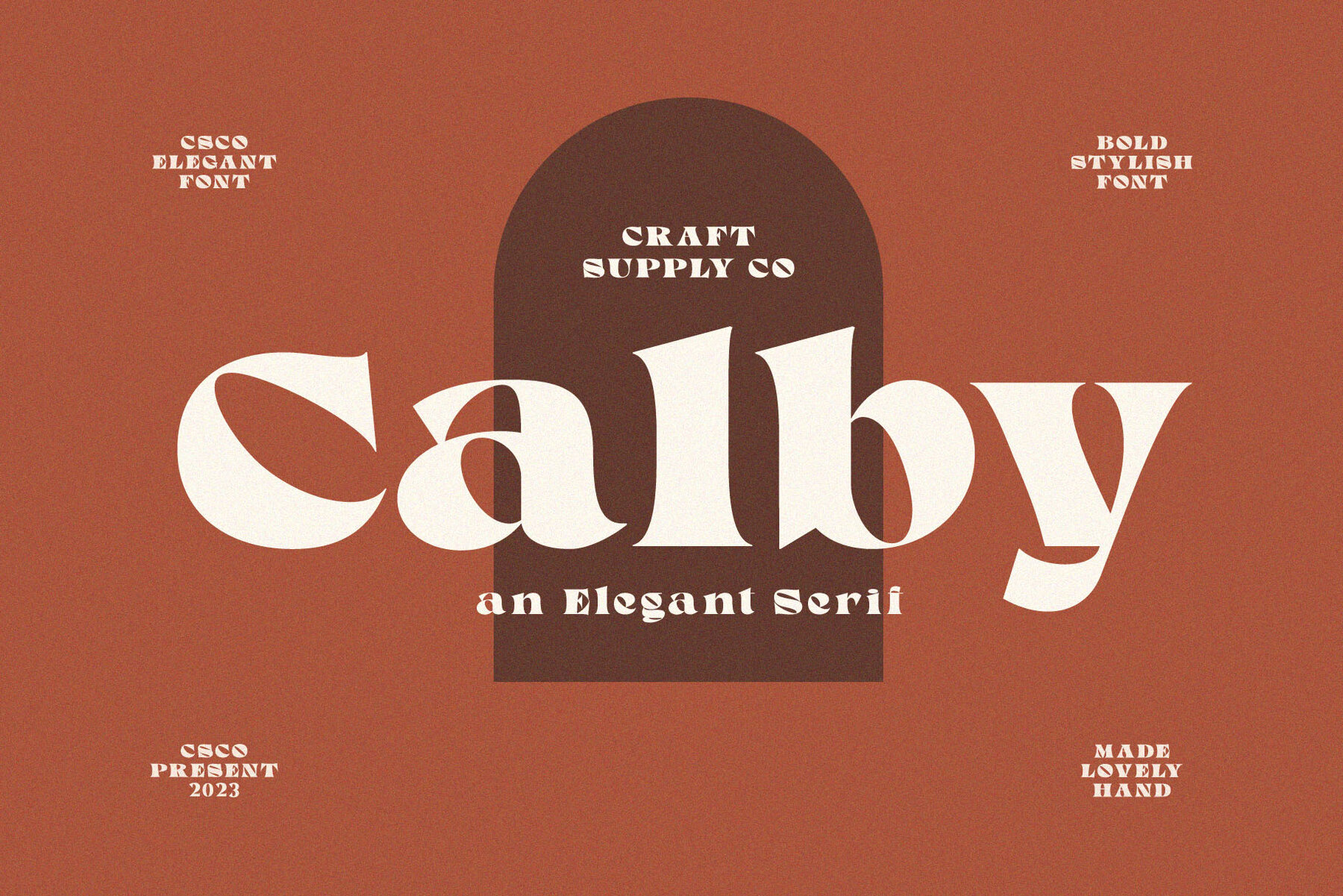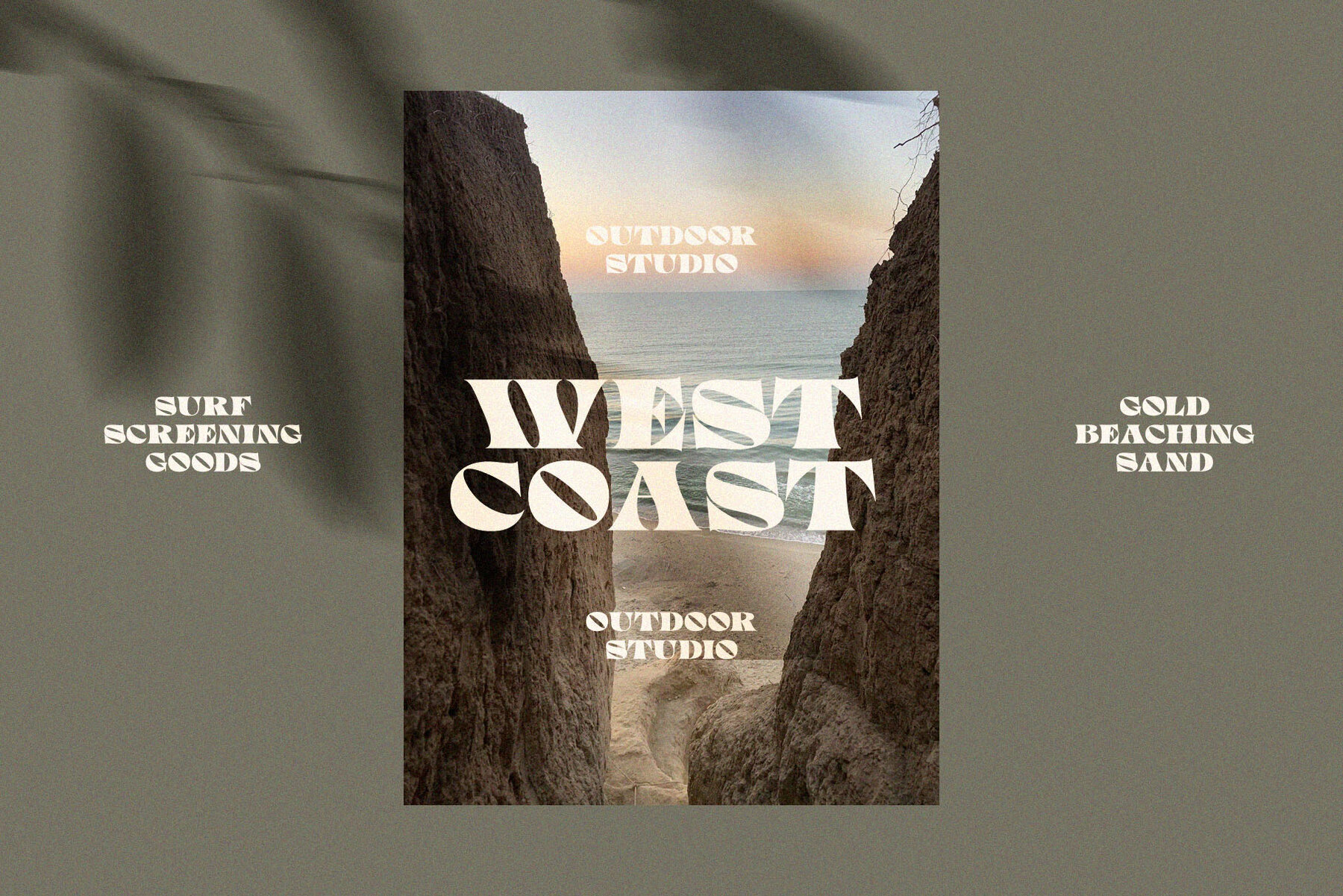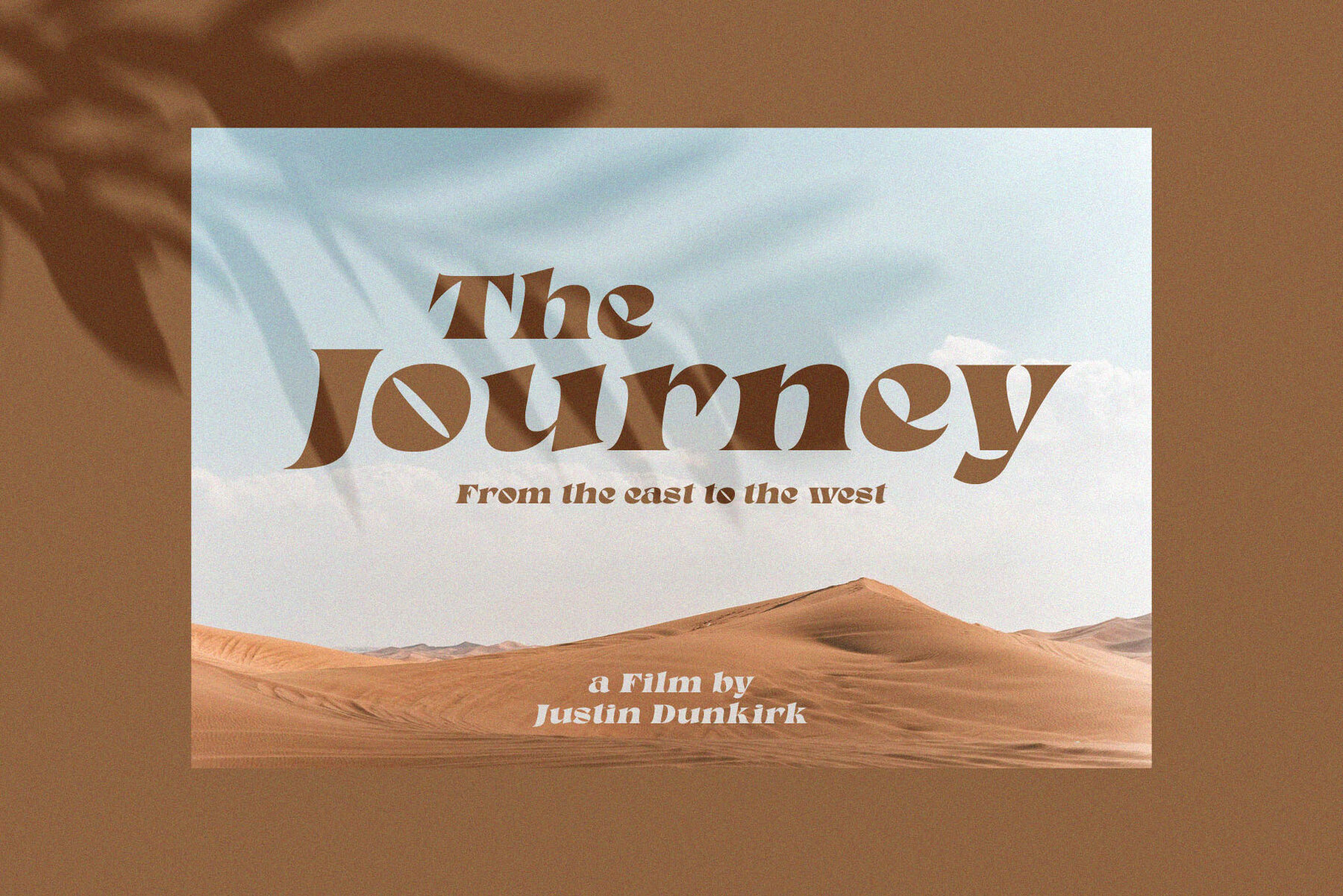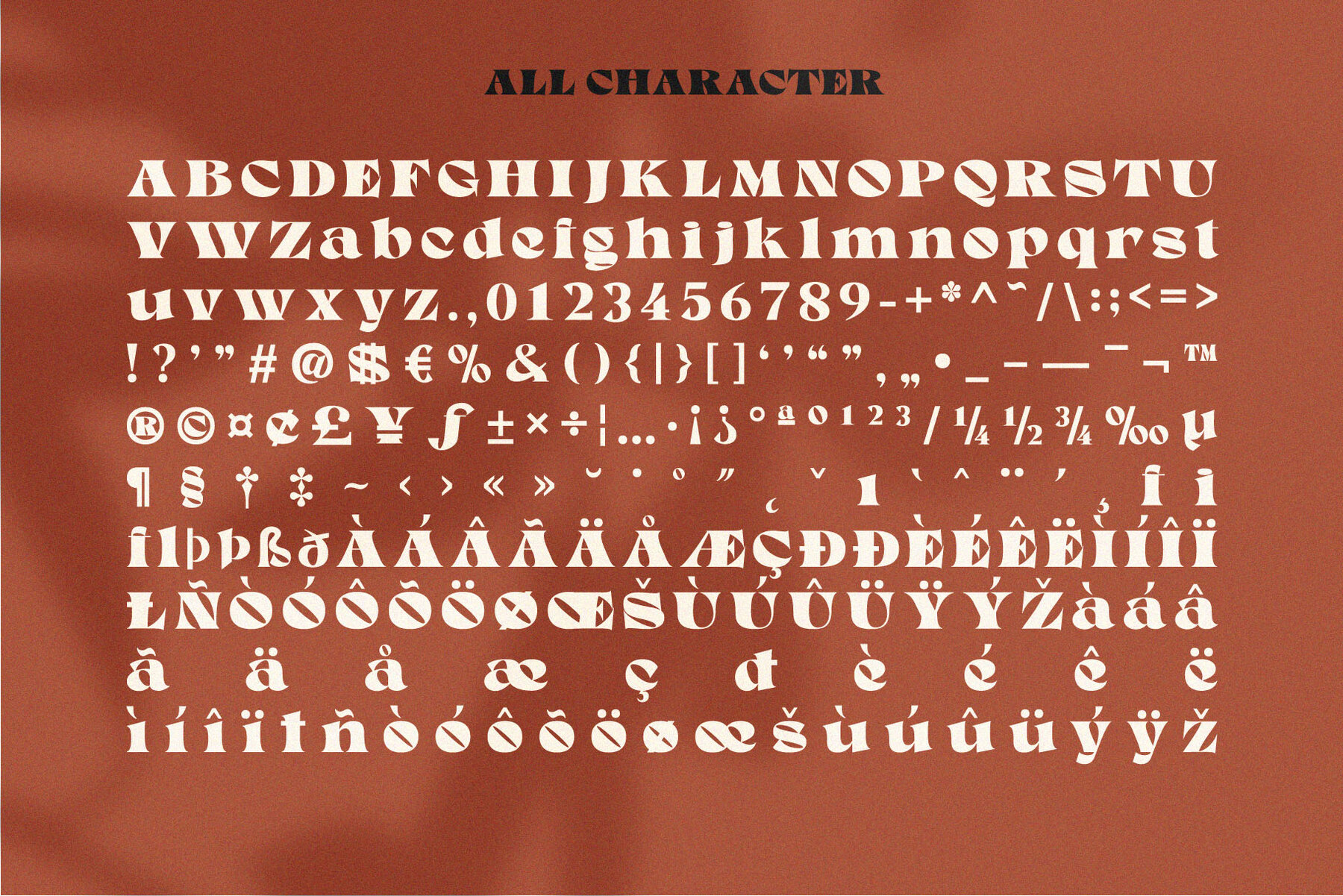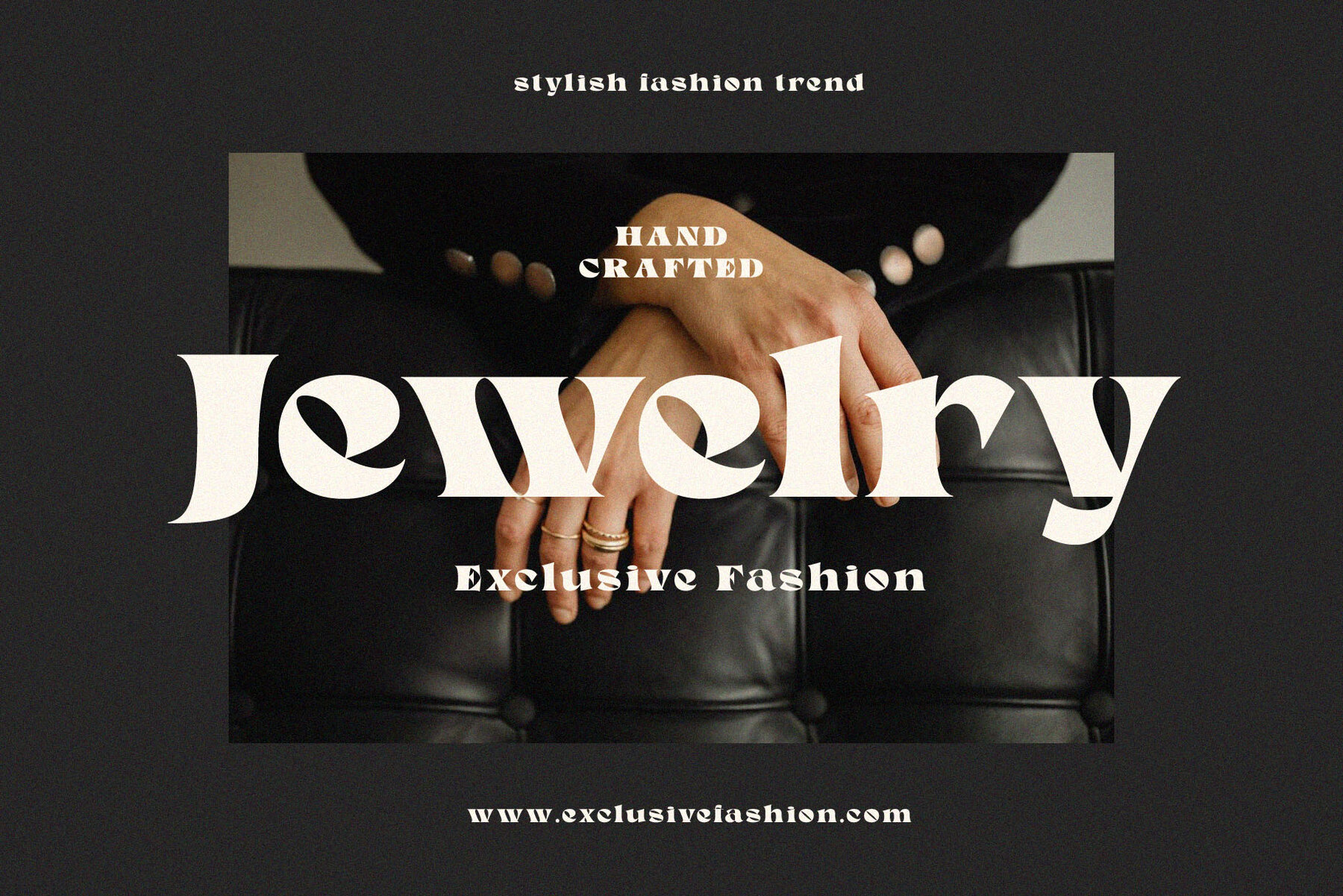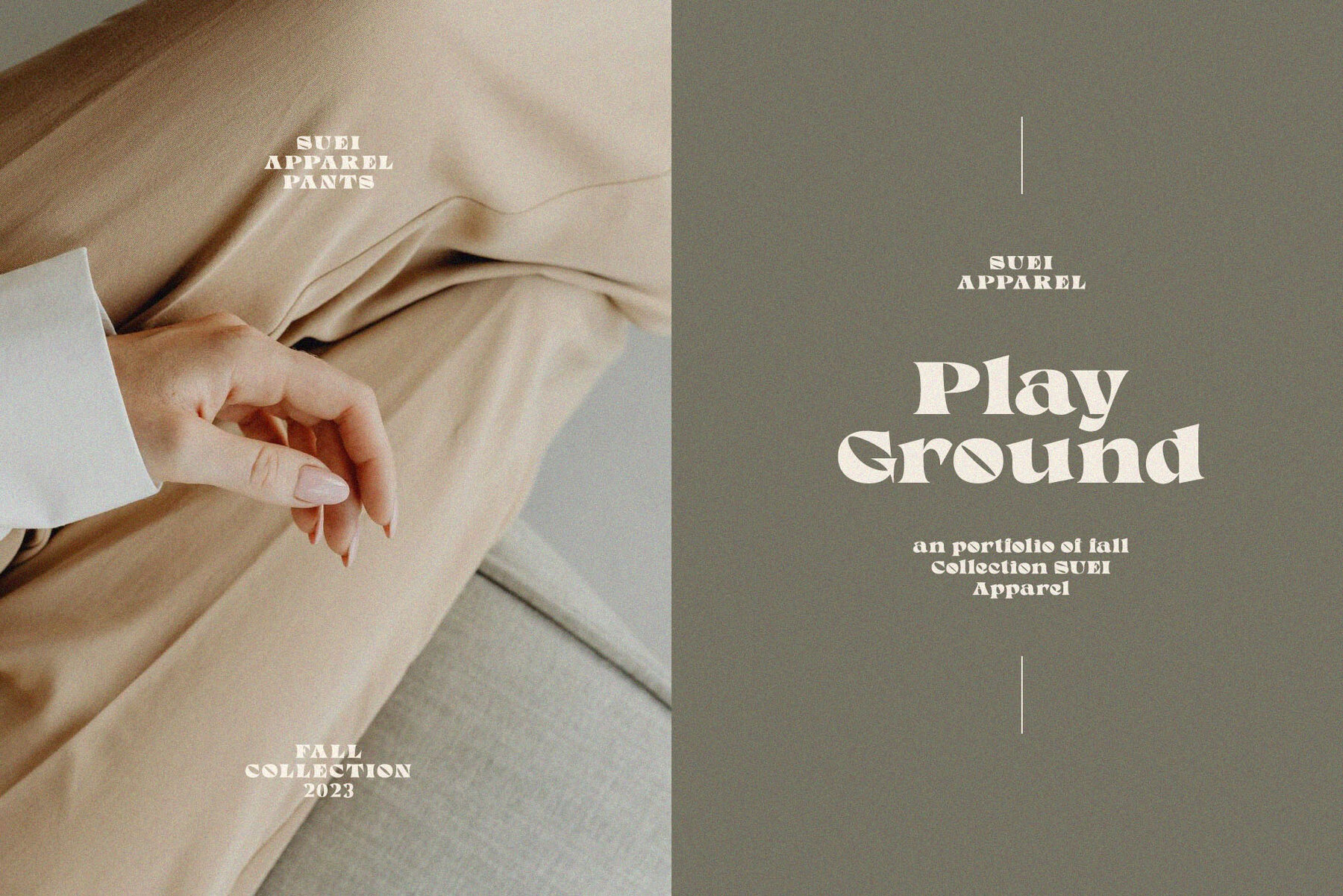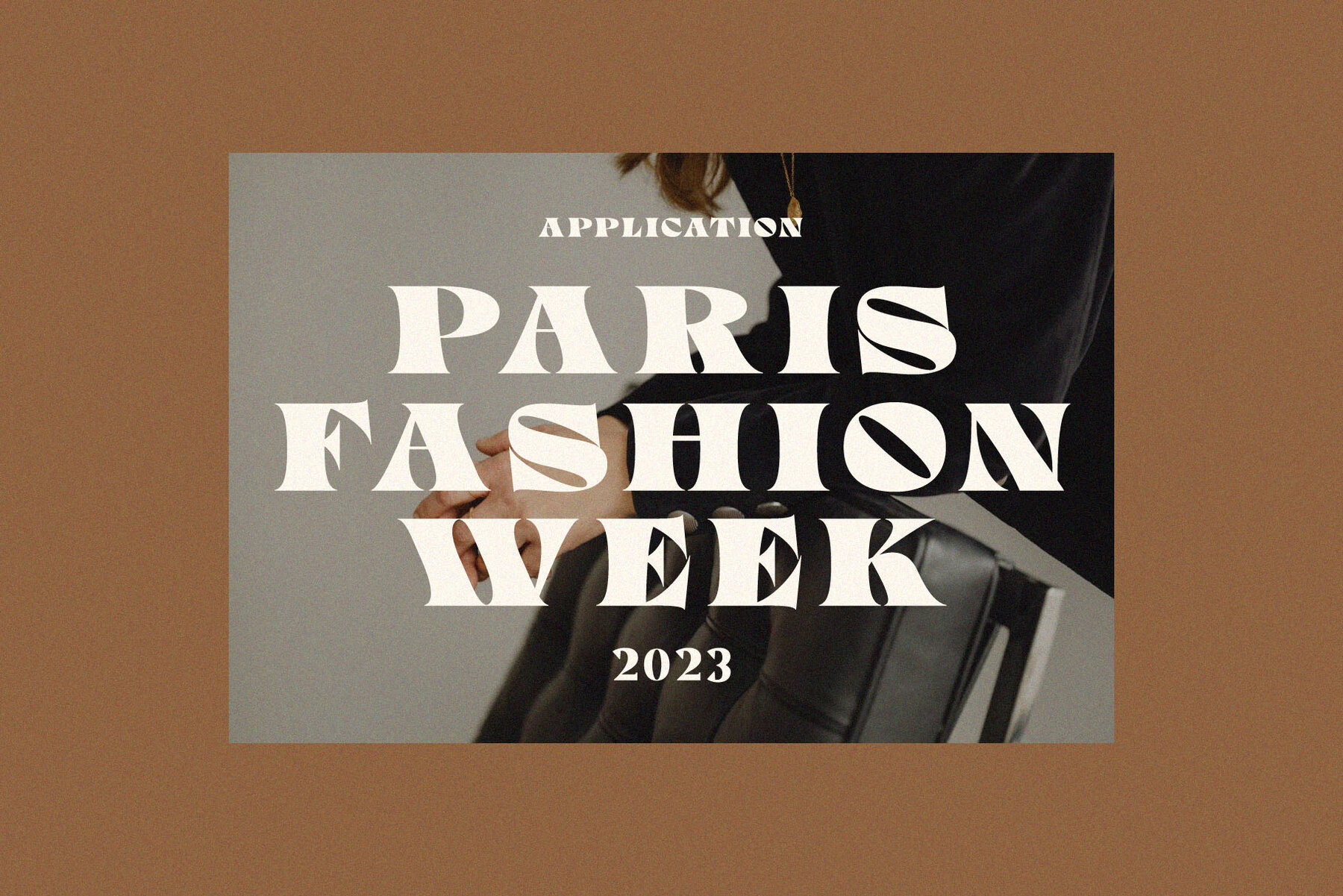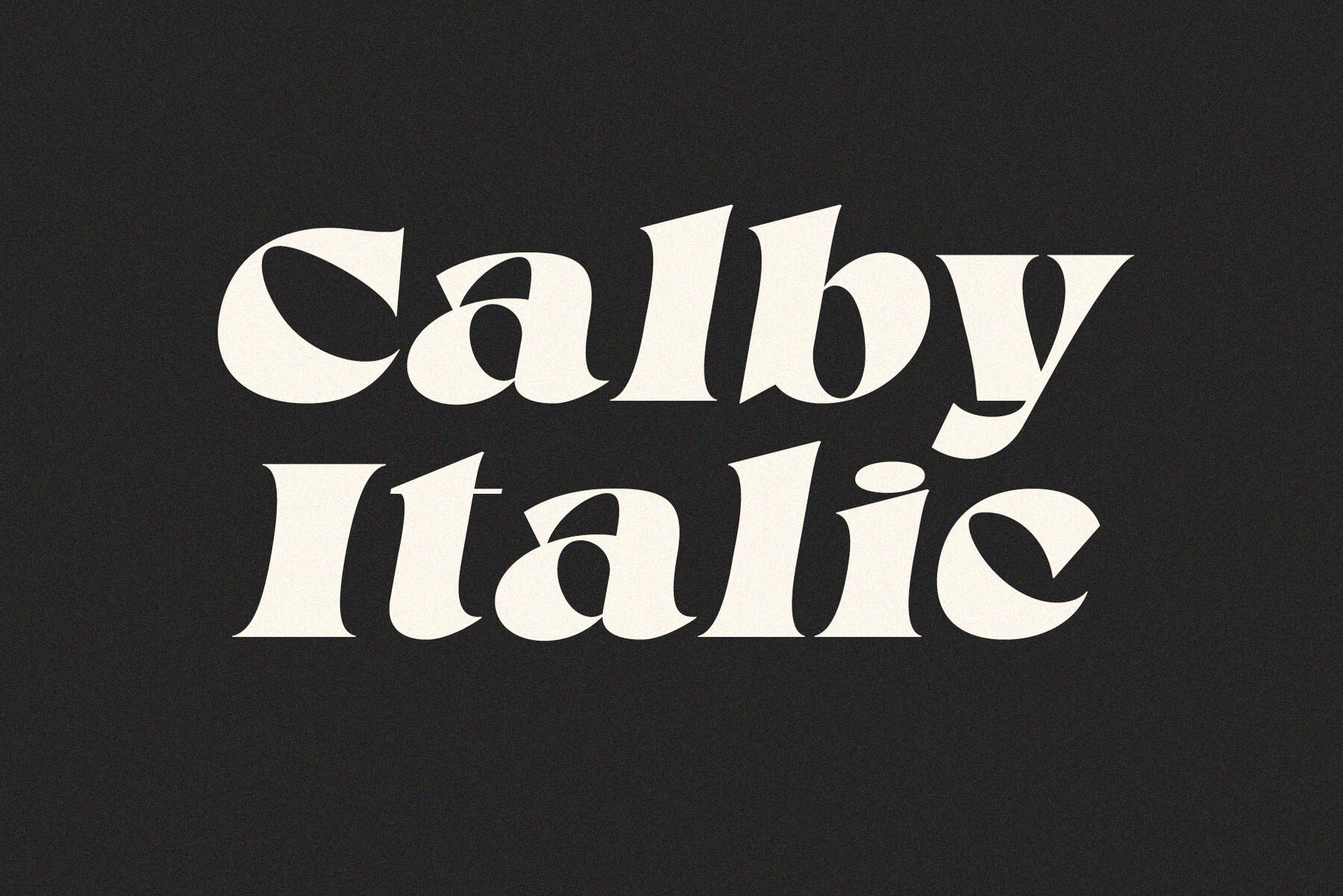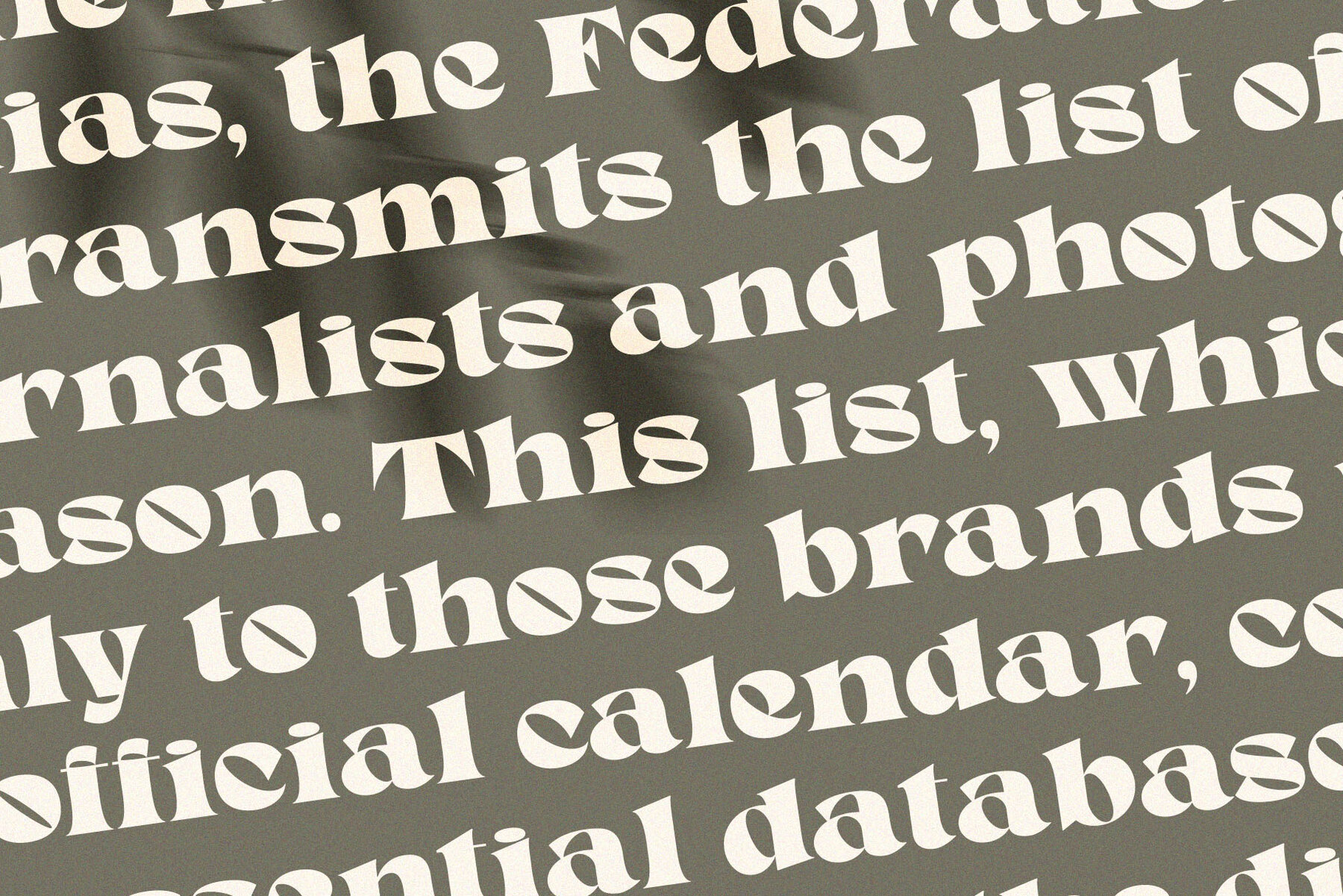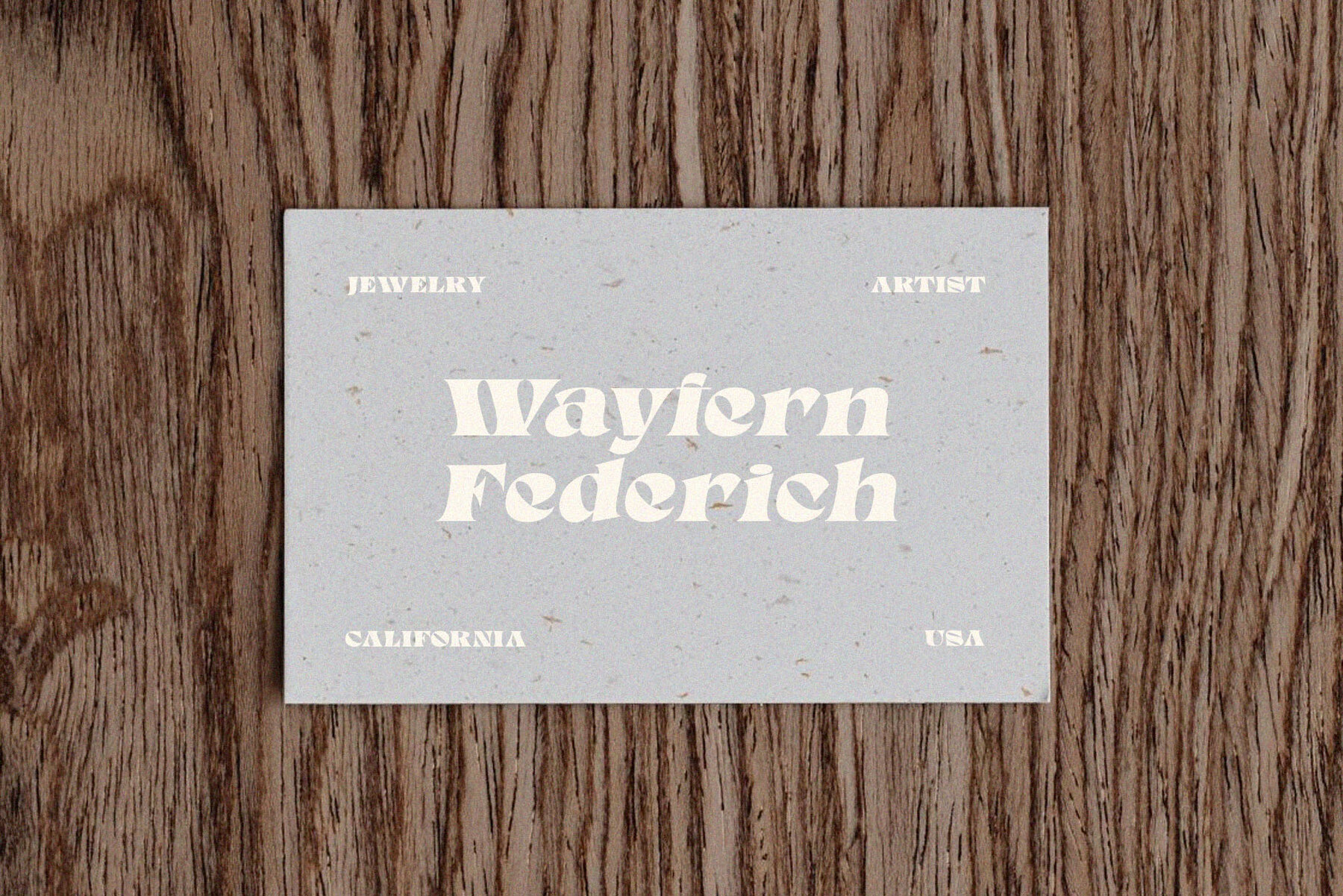
Calby Font
Introducing Calby - a new, elegant serif font family that contains two style of fonts, regular and italic. Whether you're looking for something simple and modern to add some personality to your designs or something more extravagant and formal to stand out from the crowd, Calby has the perfect font for you.
The Regular style is designed for everyday use, while the Italic style is perfect for when you want to create a more dramatic look. Both styles are available in both Regular and Bold weights, so you can find the perfect one for your needs.
Uppercase & Lowercase
Numerals & Punctuations (OpenType Standard)
Accents (Multilingual characters)